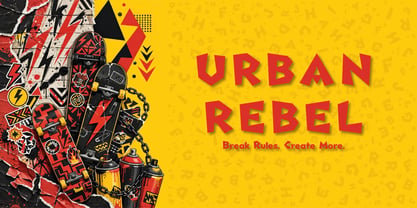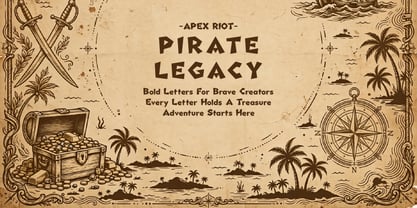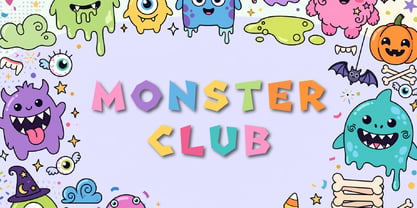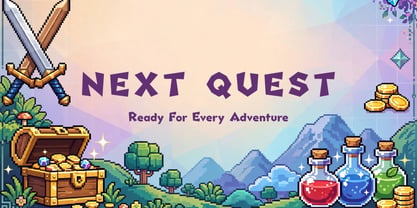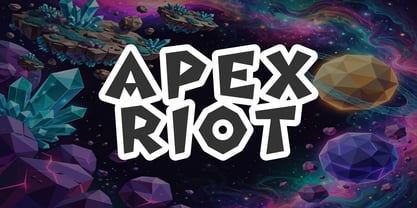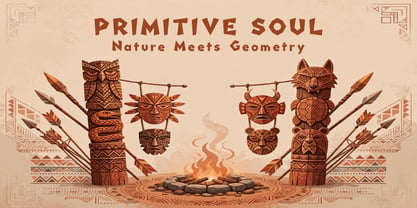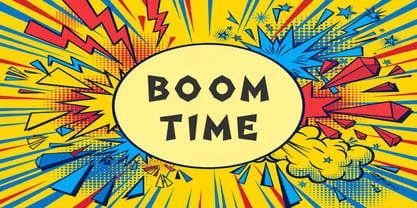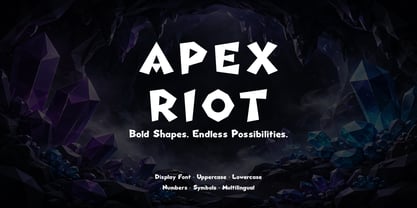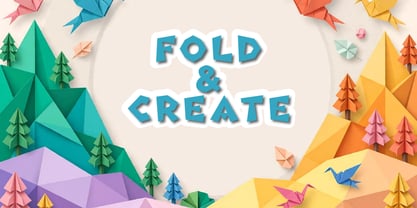
Apex Riot
von Pictranoosa
Die Schriftfamilie Apex Riot wurde von Ihsan Nugroho entworfen und von Pictranoosa veröffentlicht. Apex Riot enthält 1 Stile. Mehr über diese Familie
Apex Riot is a bold display font that combines sharp geometric angles with a playful, rebellious personality. Inspired by faceted crystals, paper-cut shapes, and modern punk aesthetics, every character is crafted to create a strong visual impact while maintaining excellent readability. Its irregular edges and dynamic forms give your designs an energetic, handcrafted feel that instantly grabs attention.
Whether you're creating logos, posters, game titles, comic covers, branding, packaging, merchandise, children's products, YouTube thumbnails, or social media graphics, Apex Riot delivers a unique and memorable look. Packed with uppercase, lowercase, numbers, punctuation, and symbols, this typeface is designed to make every headline stand out with confidence and creativity.
Designer: Ihsan Nugroho
Foundry: Pictranoosa